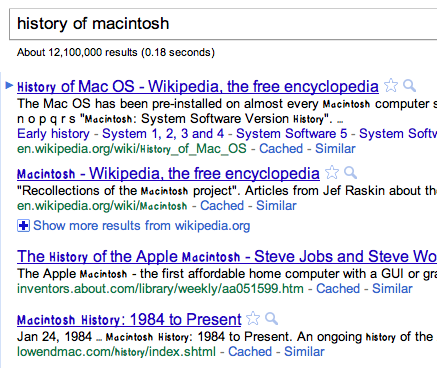
I just installed some of my old fonts on my new 15" Macbook Pro 2.3Ghz i7. It seems as though something has gone wrong. All of the fonts installed correctly and I can view them in the Adobe Master Suite etc. However, something has happened to the fonts that my browser (Chrome, but this also happens in Safari) where some of them show up as a comical sans-serif font I'm having a hard time identifying. Can someone give me some insight into this, and perhaps solve the problem for me?
Here are some example images:
P.S. This doesn't seem to affect any system fonts per se, but can rather be identified as an issue with web-specific fonts.